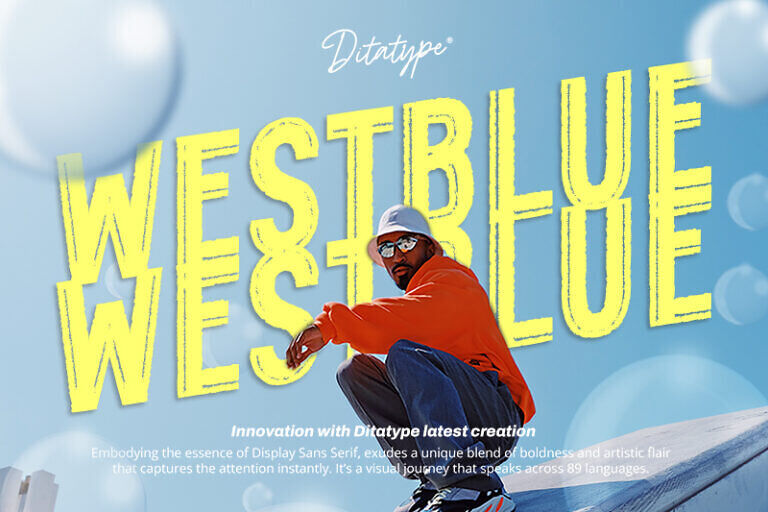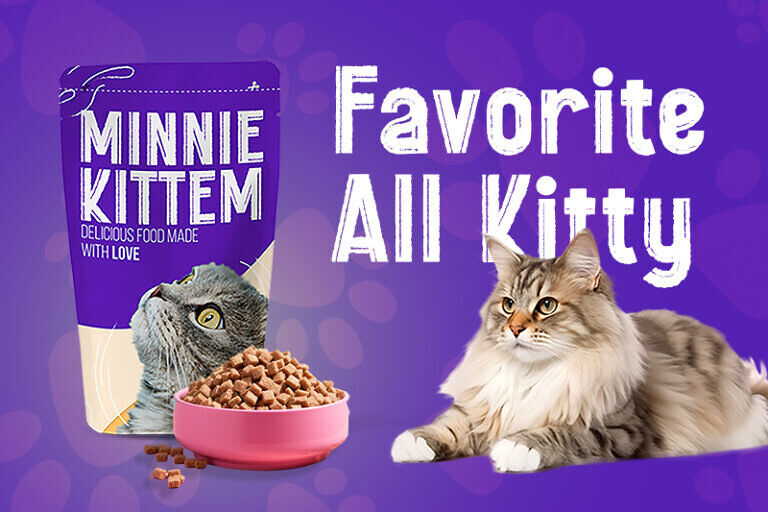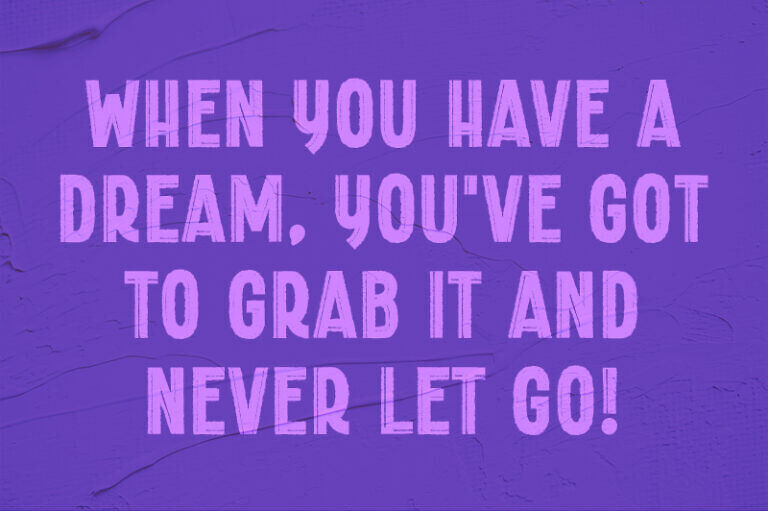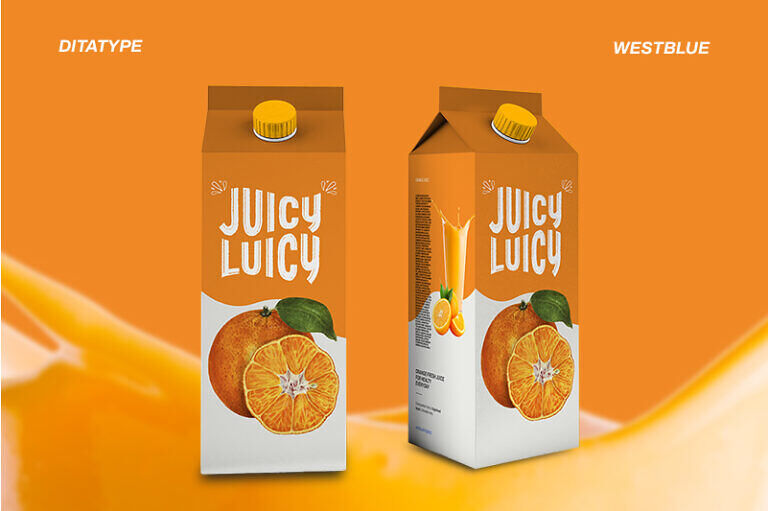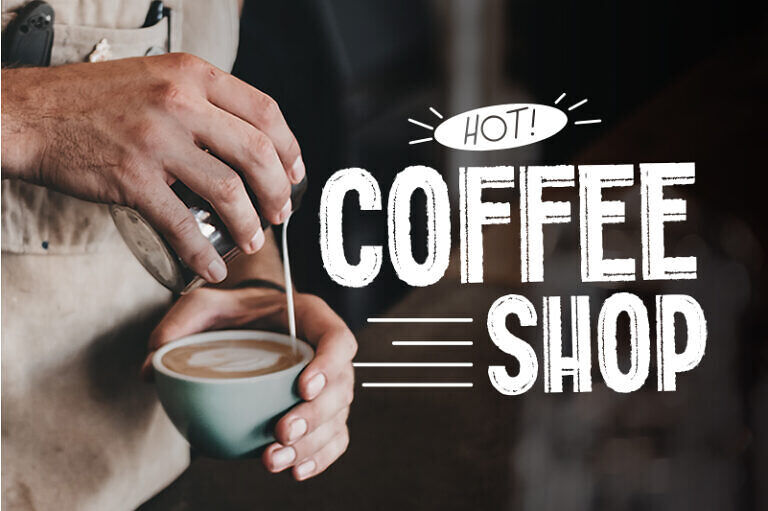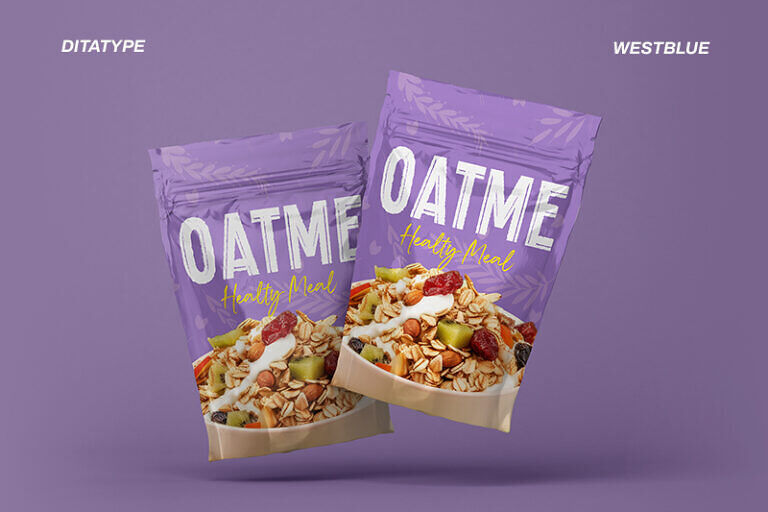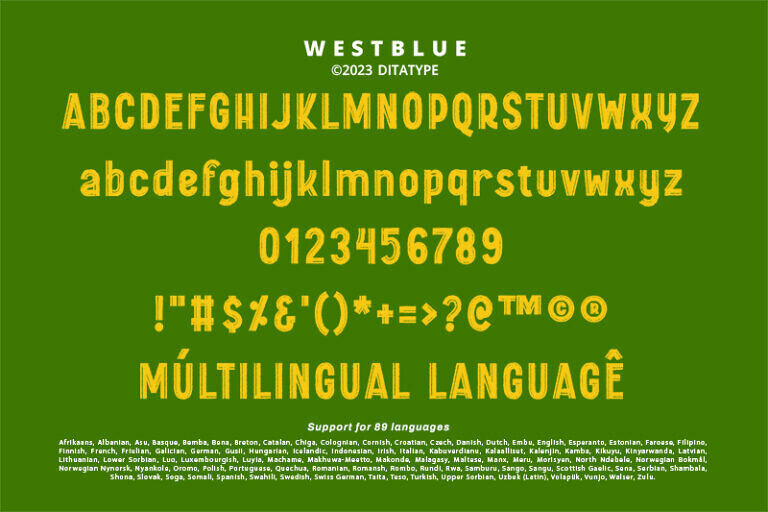
Westblue Font
Westblue is a captivating sans-serif display font. Crafted in bold style and intricate brushwork, this font is a versatile choice for designers seeking a perfect combination of impact and creativity.
The characters in Westblue command attention with their substantial size and clean, sans-serif lines. What sets this font apart is the meticulously added brushed details, which bring an organic and handcrafted touch to each letter.
Westblue fits in headlines, logos, posters, flyers, branding materials, greeting cards, print media, editorial layouts, and many more designs. Find out more ways to use this font by taking a look at the font preview.